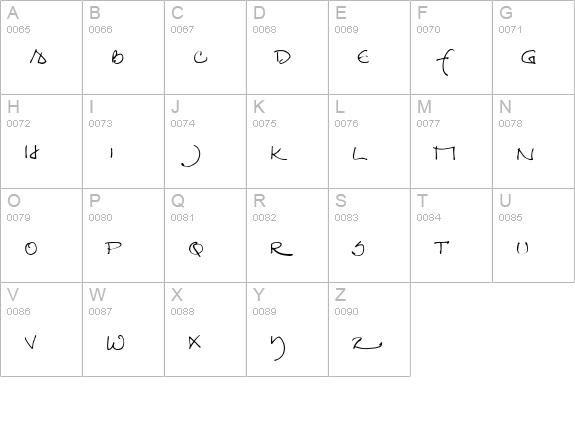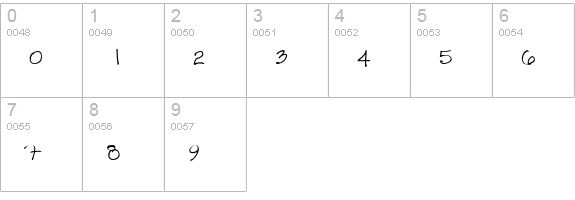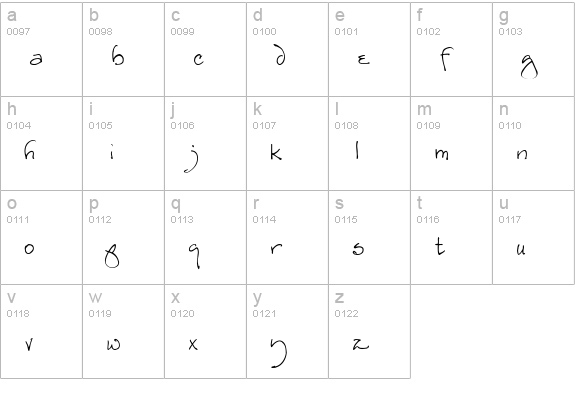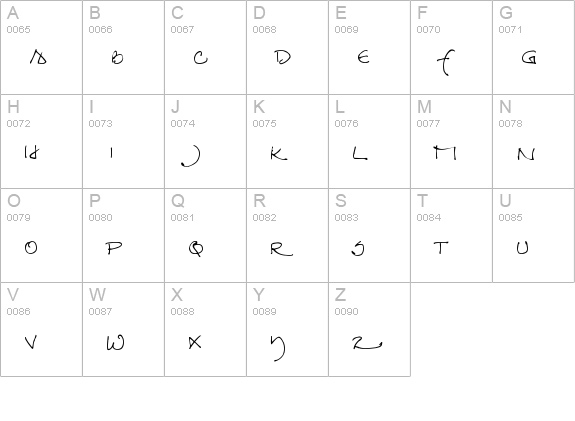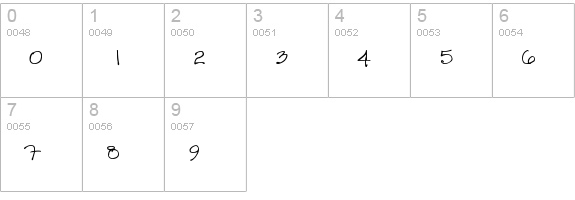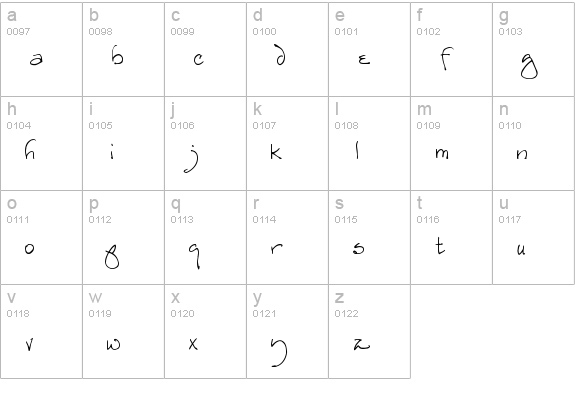
RedStar Font Details
Introducing RedStar, a stunning and versatile font that will captivate your audience with its bold and dynamic design. This font exudes a sense of power and sophistication, making it the perfect choice for eye-catching headlines, impactful logos, or striking branding materials. RedStar showcases a unique combination of sharp edges and sleek curves, resulting in a visually appealing and modern typeface that effortlessly commands attention. Its carefully crafted letterforms give each character a distinctive personality, lending a touch of elegance and professionalism to any project. One of the most remarkable aspects of RedStar is that it is freely available to download at FontsMarket.com. This means that you can enjoy the exceptional quality and design of this font without any cost, making it an invaluable asset for both personal and commercial use. Whether you're a graphic designer looking to elevate your creations or an individual seeking to add a touch of sophistication to your personal projects, RedStar is the font that will exceed your expectations. Its seamless compatibility with various design software and platforms ensures that you can seamlessly incorporate it into your creative process. Download RedStar today from FontsMarket.com and unlock the limitless possibilities that this extraordinary font offers. With its striking aesthetics and the added advantage of being free, RedStar is the perfect choice for those who seek to make a bold statement and leave a lasting impression.